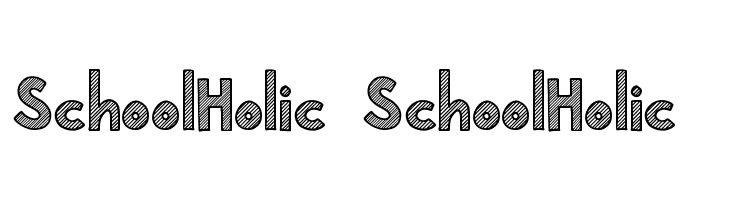
( Fonts by Subectype & Orenari )
A bold, sketch-like font with a playful, hand-drawn appearance.
( Fonts by Subectype & Orenari )
A bold, playful font with rounded, hand-drawn characters.
( Fonts by Subectype & Orenari )
A playful, hand-drawn font with a 3D effect and bold outlines.
( Fonts by Subectype & Orenari )
A playful, hand-drawn font with bold outlines and diagonal hatching.
( Fonts by Subectype & Orenari )
A bold, playful font with a 3D shadow effect and hand-drawn style.
( Fonts by Subectype & Orenari )
A playful, bold font with a 3D shadow effect and cartoonish style.
( Fonts by DM Studio )
A bold, playful font with a 3D effect and cartoonish style.
( Fonts by Jonathan S. Harris )
A bold, hand-drawn font with a playful scribble texture.
( Fonts by Mr Letters )
A playful, hand-drawn font with bold outlines and a cartoonish style.
A playful, bold font with a bubble-like, outlined style.